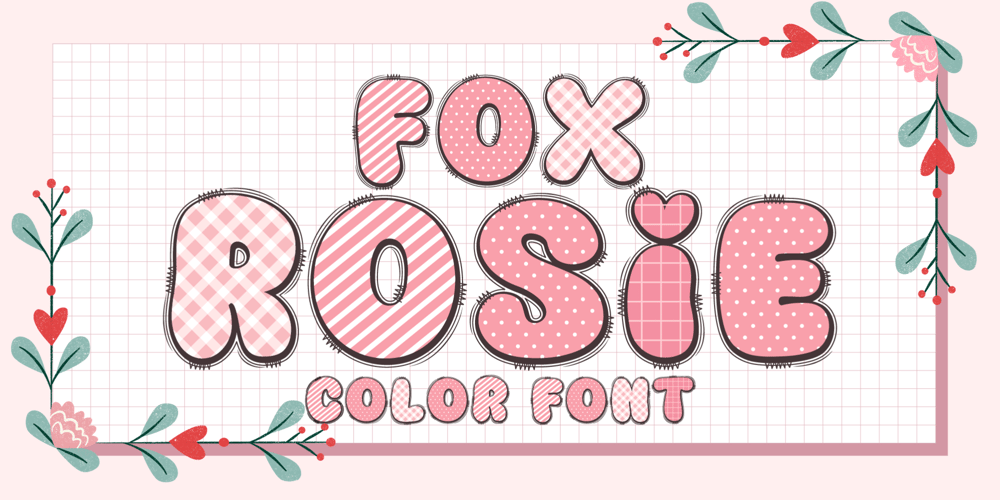
Fox Rosie Font Family was designed by Rattana Rattanawan and published by Fox7. Fox Rosie contains 1 styles and family package options. Fox Rosie is a cute and fun color font. This font is your go-to for crafting cute greeting cards that express affection and warmth. Whether you’re a designer, a social media influencer, or someone with a penchant for creative expression. Fall in love with its authentic feel and use it to create gorgeous invitations, beautiful stationary art, eye-catching social media posts, and cute greeting cards. Add this beautiful font to each of your creative ideas, and notice how it makes them stand out.Learn more about color font support on third-party apps here: https://www.colorfonts.wtf/🌺🌺 Please note that the Canva do not support color fonts! 🌺🌺